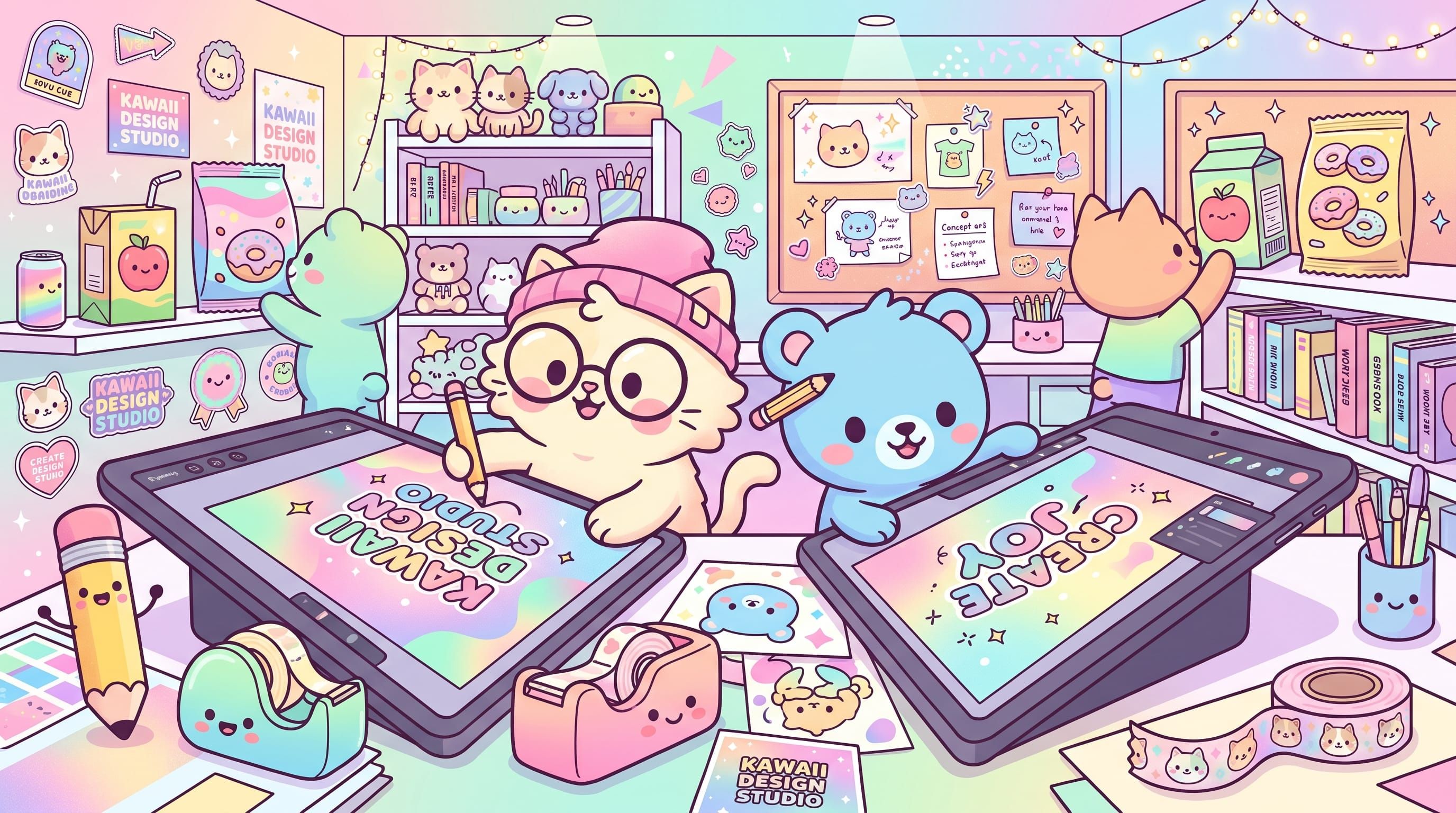
Kawaii Graphic Design Style for Better Creative Results
kawaii graphic design style
The kawaii graphic design style has become one of the most recognizable visual trends in modern creative design. Originating from Japanese pop culture, kawaii design focuses on cuteness, friendliness, bright colors, and playful characters. Today, this style appears everywhere, including stickers, social media graphics, product packaging, merchandise, stationery, and digital content.
For creators and sticker designers, the kawaii graphic design style offers a powerful way to attract attention and create emotional connections with audiences. Cute visuals naturally feel approachable and memorable. As a result, many successful brands use kawaii-inspired elements to increase engagement and build loyal communities.
The best kawaii graphic design style projects combine charming illustrations, soft color palettes, rounded typography, expressive characters, and balanced layouts. In this guide, you will learn the core principles of kawaii design, practical template ideas, color recommendations, and font pairings inspired by DM Letter Studio fonts.
Why Kawaii Graphic Design Style Remains Popular
Cute design continues to perform well across multiple markets.
The kawaii graphic design style helps creators:
• Increase visual appeal
• Build emotional connections
• Improve brand memorability
• Attract younger audiences
• Create shareable content
• Enhance merchandise sales
• Improve social media engagement
Cute visuals often feel more welcoming and approachable than traditional design styles.
Understanding the Core Elements of Kawaii Graphic Design Style
Before creating kawaii artwork, it is important to understand its visual foundation.
Cute Character Design
Characters often become the centerpiece of the kawaii graphic design style.
Common features include:
• Large eyes
• Rounded faces
• Small mouths
• Soft shapes
• Friendly expressions
Simple character designs usually perform best.
Rounded Shapes and Soft Edges
Sharp angles rarely appear in kawaii design.
Instead, designers often use:
• Rounded corners
• Circular objects
• Soft clouds
• Puffy shapes
• Curved illustrations
This approach creates a friendlier visual atmosphere.
Kawaii Graphic Design Style Color Palettes
Color plays a major role in creating a cute aesthetic.
Pastel Color Palette
Popular colors include:
• Baby pink
• Sky blue
• Lavender
• Mint green
• Soft yellow
Pastel colors are strongly associated with the kawaii graphic design style.
Candy-Inspired Color Combinations
Another popular approach uses:
• Cotton candy pink
• Bubblegum blue
• Peach orange
• Lemon cream
• Light turquoise
These palettes create energetic and playful visuals.
Kawaii Graphic Design Style for Sticker Design
Sticker design is one of the most popular applications of kawaii artwork.
Food Sticker Templates
Cute food characters remain highly marketable.
Examples include:
• Smiling donuts
• Happy strawberries
• Cute ice cream
• Cheerful coffee cups
• Friendly sushi characters
These concepts fit perfectly within the kawaii graphic design style.
Animal Sticker Templates
Popular kawaii animals include:
• Cats
• Bears
• Rabbits
• Pandas
• Hamsters
Adding facial expressions increases emotional appeal.
Kawaii Graphic Design Style Templates for Social Media
Social platforms are ideal for cute visual content.
Instagram Post Template
Recommended layout:
• Character illustration
• Large headline
• Soft pastel background
• Decorative icons
• Rounded borders
This structure works well for creator brands.
Instagram Story Template
Elements include:
• Simple call-to-action
• Kawaii character
• Soft gradients
• Animated stickers
Stories should feel playful and interactive.
Kawaii Graphic Design Style for Branding
Cute branding extends beyond illustrations.
Building a Kawaii Brand Identity
Successful kawaii brands often include:
• Friendly mascots
• Rounded logos
• Bright color palettes
• Playful typography
• Consistent illustrations
A cohesive identity strengthens brand recognition.
Packaging Design Inspiration
Many product categories benefit from kawaii packaging.
Examples include:
• Stickers
• Stationery
• Candles
• Snacks
• Gift boxes
The kawaii graphic design style helps products stand out on crowded shelves.
Kawaii Graphic Design Style Typography Guide
Typography strongly influences visual personality.
Characteristics of Kawaii Fonts